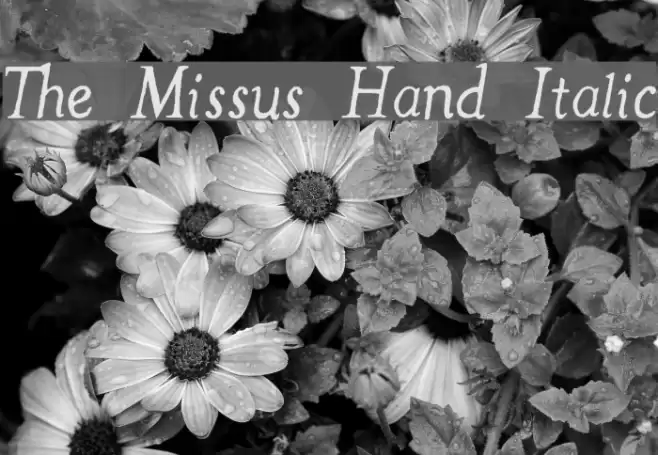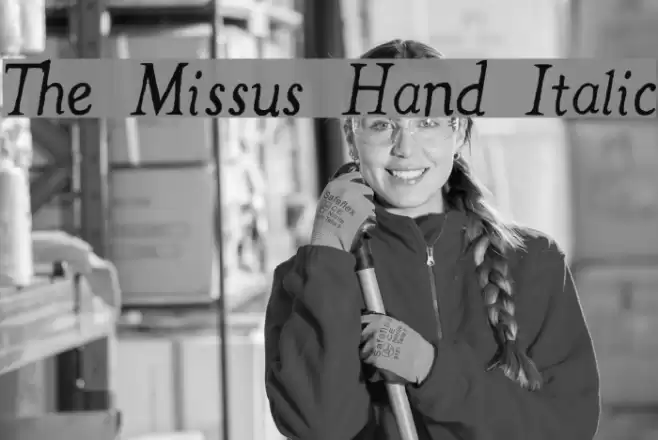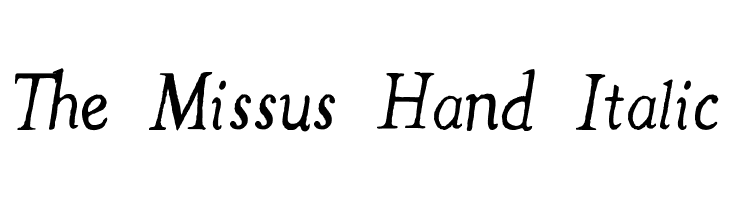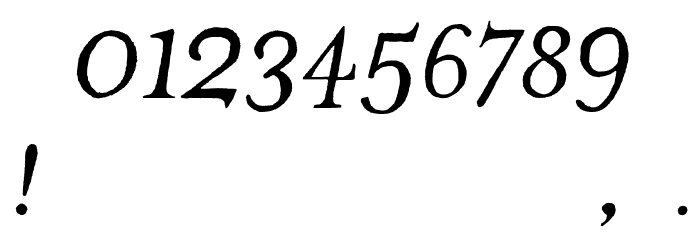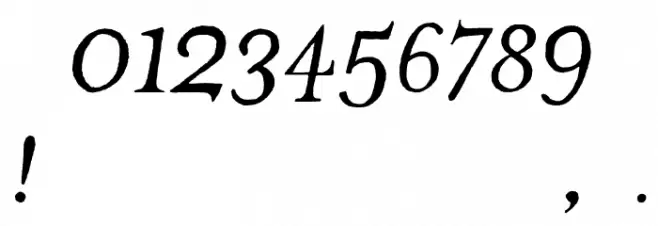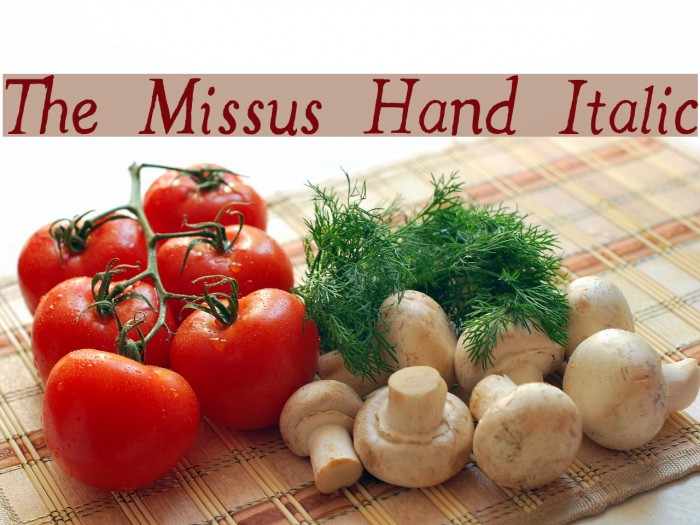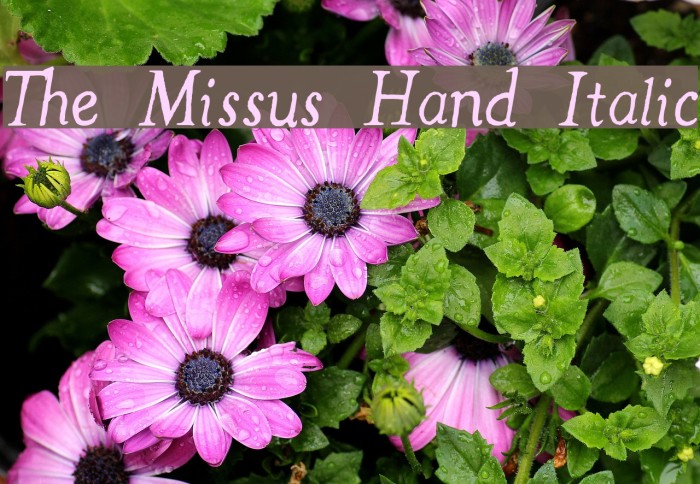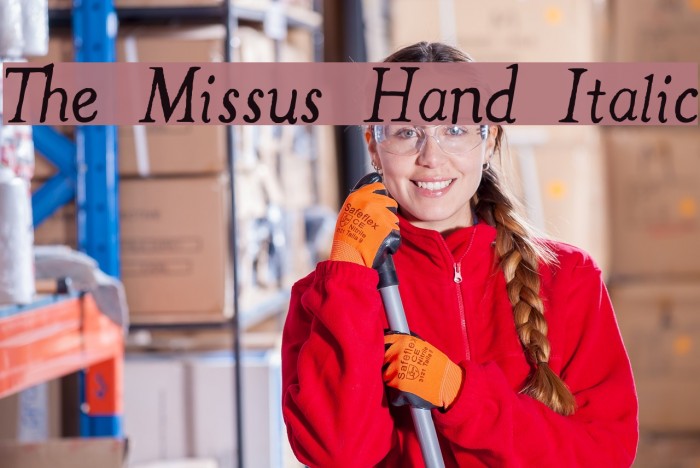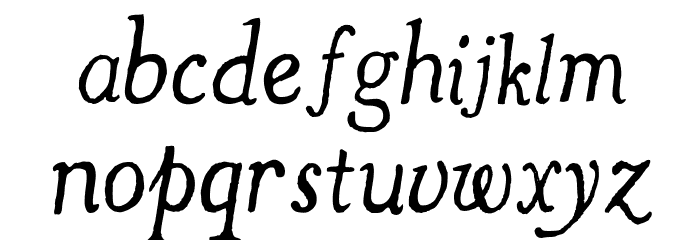
The Missus Hand Italic Font
The Missus Hand Italic Description
This font features a charming handwritten style with a distinct italic slant, giving it a personal and informal touch. The characters are elegantly crafted with a slight unevenness that adds to its hand-drawn appeal. The uppercase letters are tall and slightly narrow, while the lowercase letters maintain a consistent flow with gentle curves. The numerals are clear and legible, matching the overall style of the alphabet. Special characters are included, maintaining the same whimsical and artistic flair. The font's organic feel makes it suitable for projects that require a personal or creative touch.
A charming handwritten italic font with a personal and informal style from Uncategorized fonts.
- Proposed Projects: Ideal for greeting cards, personal invitations, artistic projects, and branding that seeks a personal touch.
- Use Case: Logos, Headlines, Artistic projects